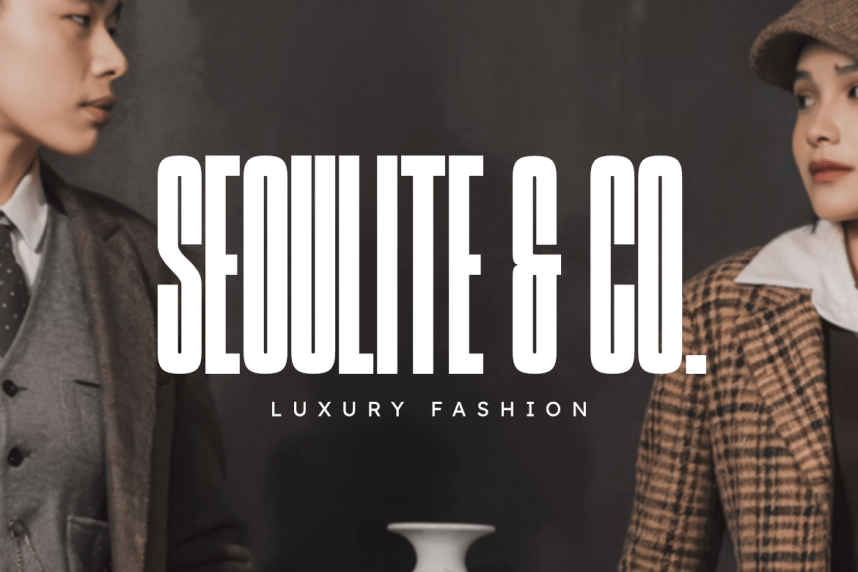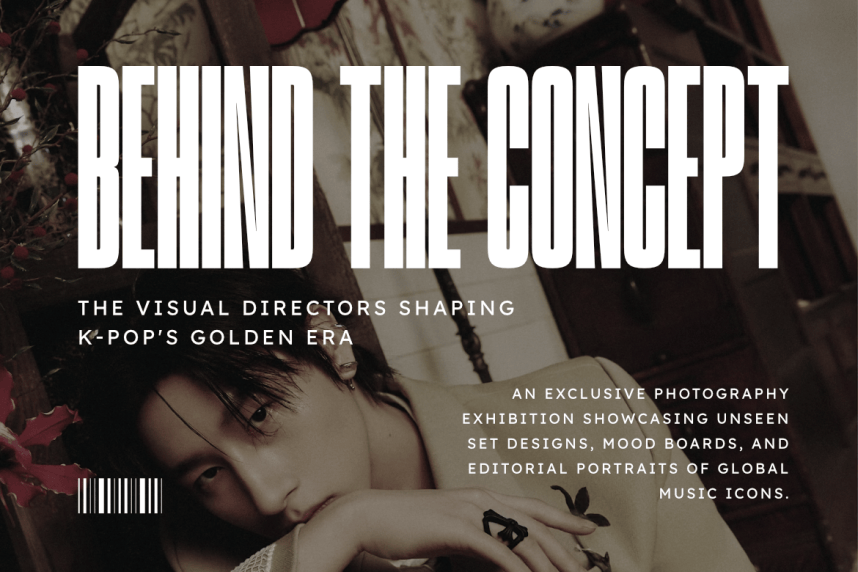
Furuko Font
Furuko Font is a highly distinctive, bold, and modern condensed sans serif font, engineered to bring an elegant editorial presence, tall space-saving geometry, and a premium display aesthetic to contemporary graphic layouts. Featuring an elongated vertical profile, heavy block proportions, and unique sharp inner notch cutouts contrasted with smooth outer curves, Furuko introduces a sophisticated cinematic identity, high-end magazine presence, luxury cosmetic branding, and prominent digital media presentation designed to claim absolute visual focus.